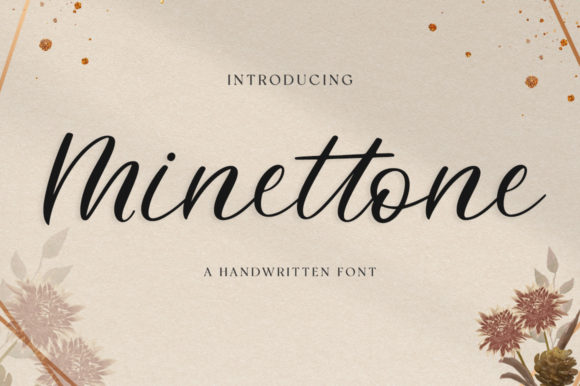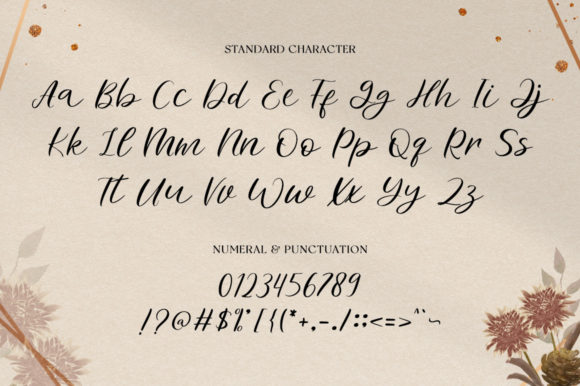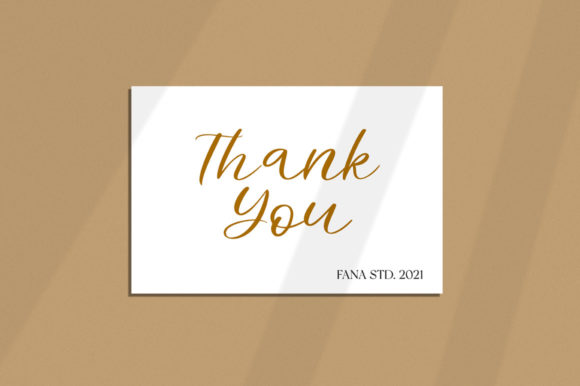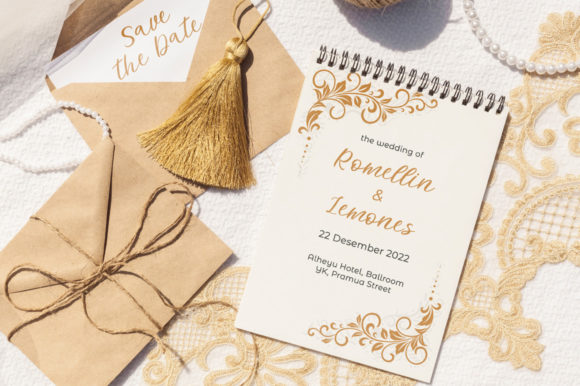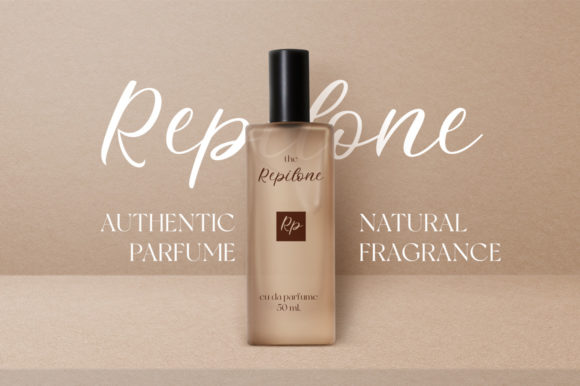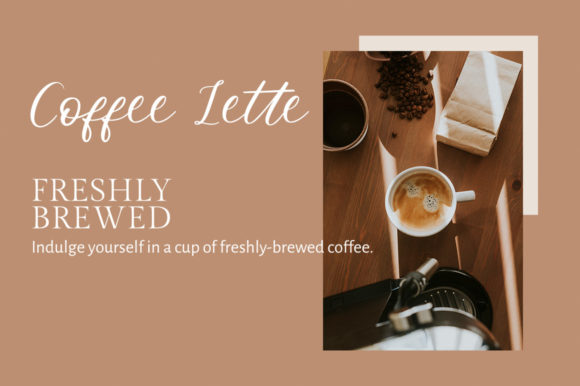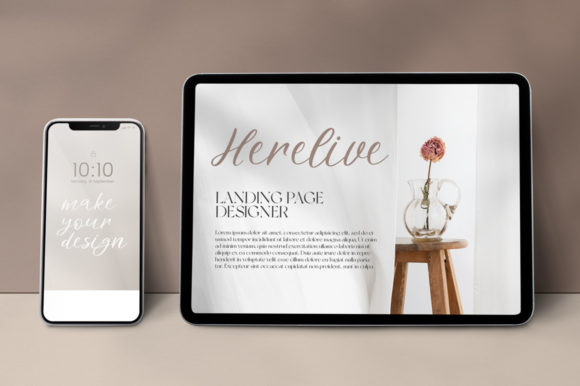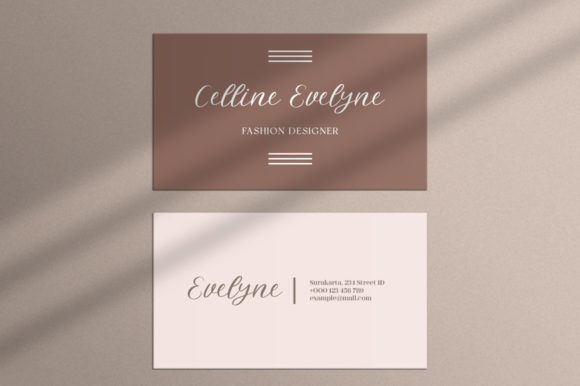
Minettone Font
About Minettone Font
Minettone is a stylish and feminine handwritten font. It includes amazing swashes which will add an elegant touch to your designs. Add it to your most creative ideas, and notice how it makes them come alive!